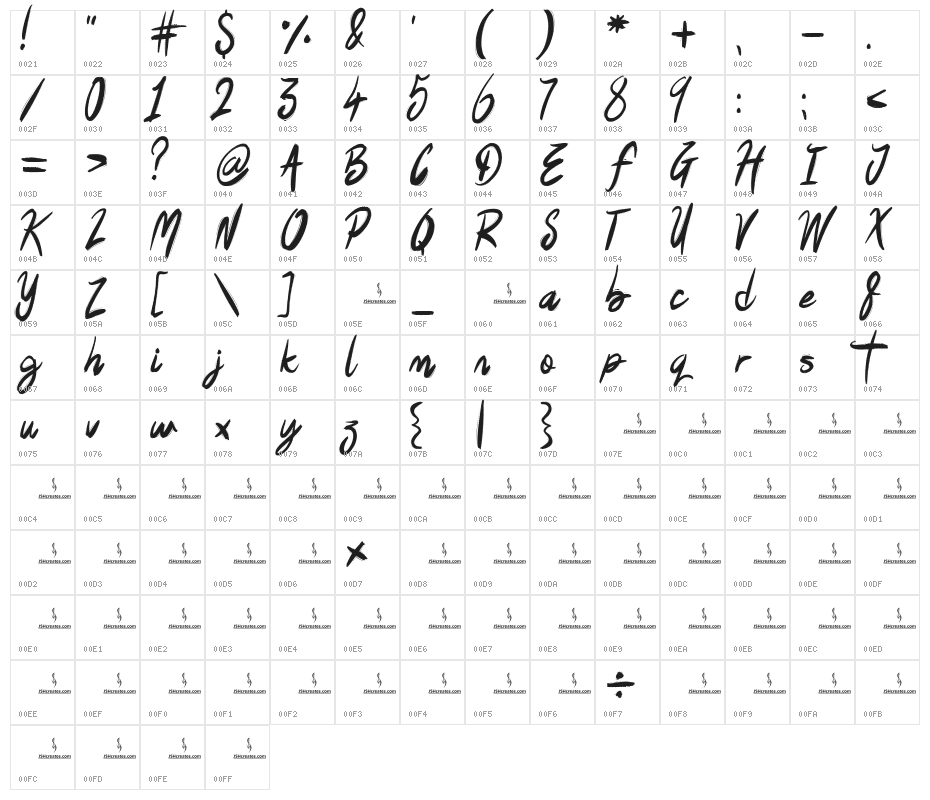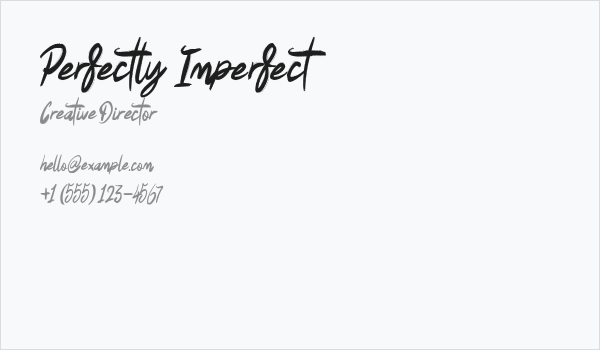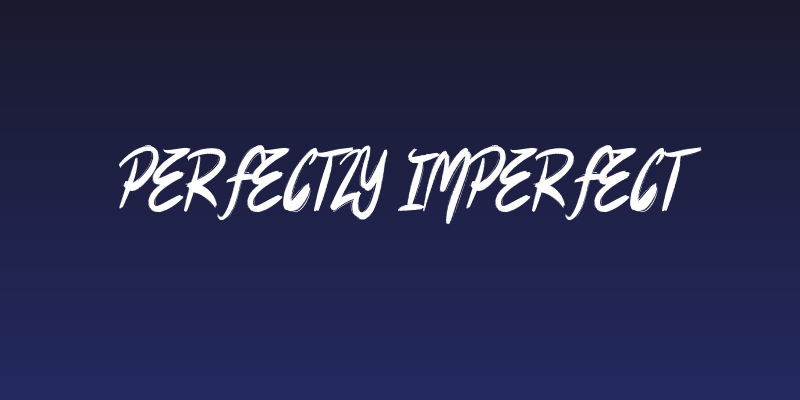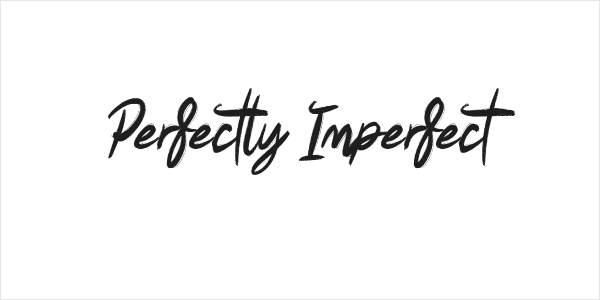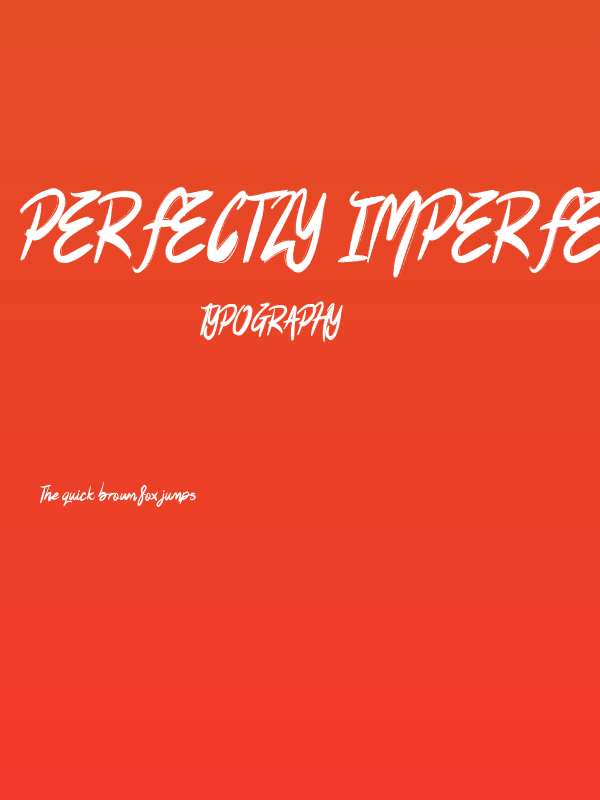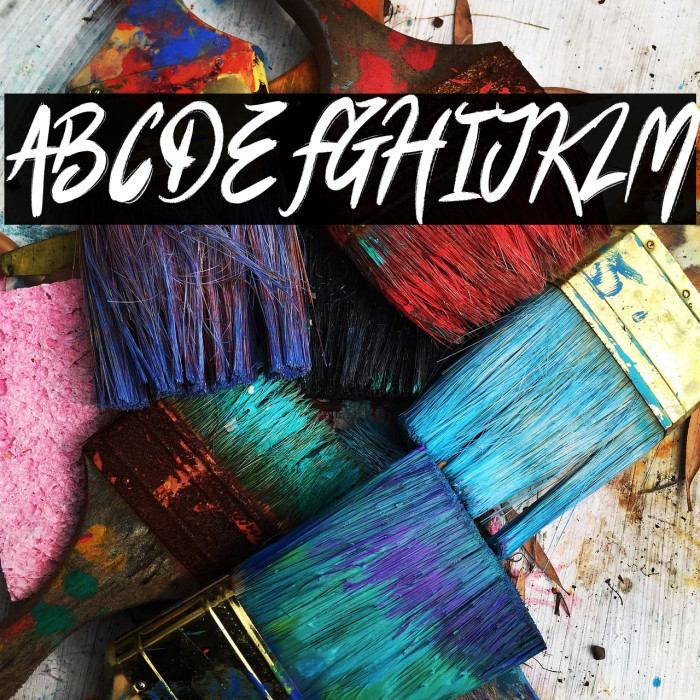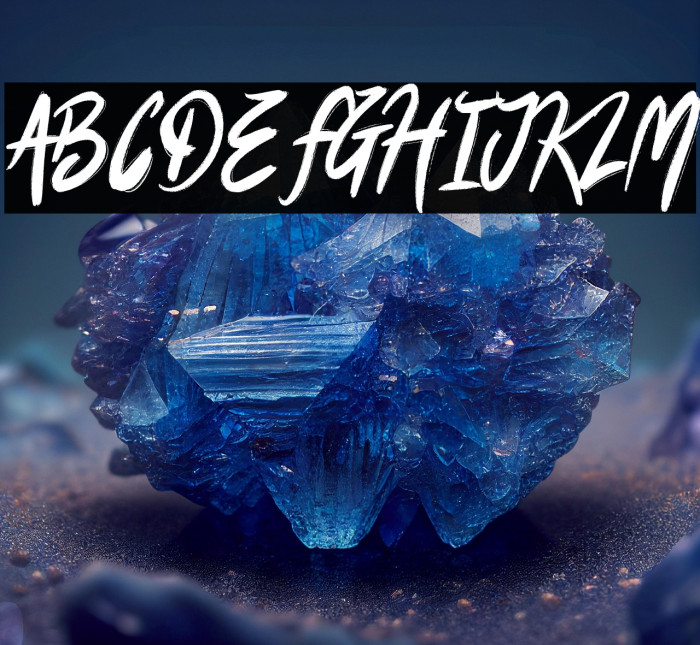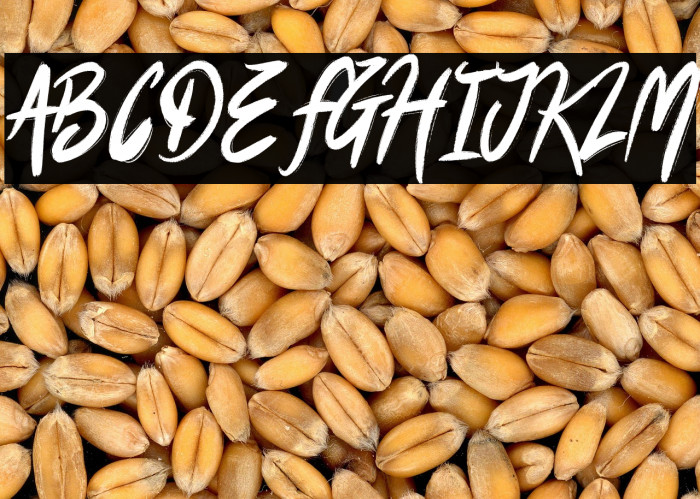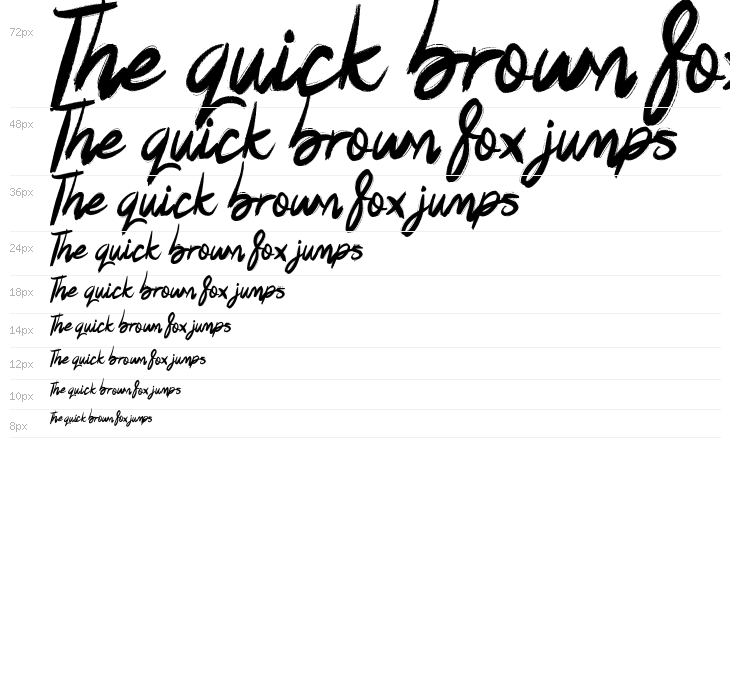
Perfectly Imperfect Font
Perfectly Imperfect Description
This font exudes a dynamic and energetic style, characterized by its bold and expressive strokes. The letters are crafted with a handwritten flair, giving them a personal and artistic touch. Each character flows seamlessly into the next, creating a sense of movement and fluidity. The uppercase and lowercase letters maintain a consistent style, with a slight slant that adds to the overall casual and informal appearance. The numbers and special characters are equally expressive, maintaining the same boldness and fluidity. This font is perfect for projects that require a personal, artistic, and lively touch.
| Proposed Projects | Ideal for creative projects like greeting cards, posters, branding, and social media graphics. |